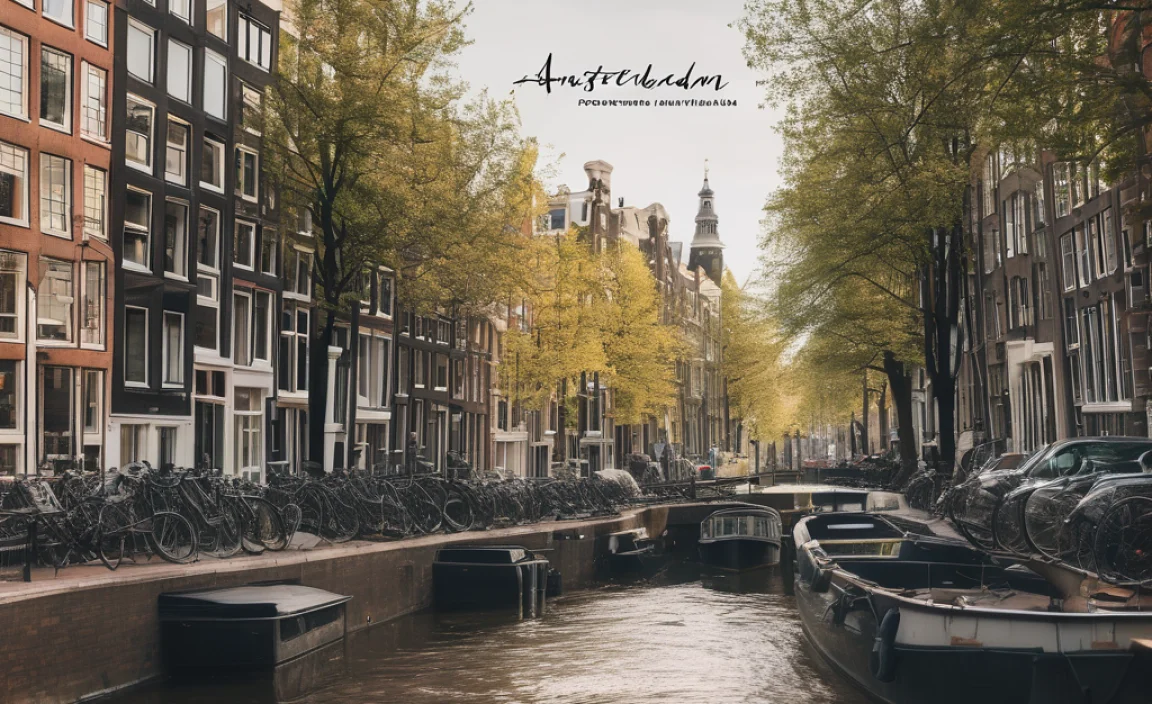
Amsterdam Signature Font, designed by Perspectype, is an elegant handwritten script font perfect for branding, logos, and creative projects. This signature font adds sophistication to various designs with its smooth curves and calligraphic strokes. Whether you’re creating a branding project, a wedding invitation, or an album cover, Amsterdam Signature Font provides a refined and modern touch.
Key Features Of Amsterdam Signature Font
- Font Style: Handwritten Script
- Designer: Perspective
- Best For: Branding, advertising, watermarking, and creative typography
- Stylistic Alternates: Available
Amsterdam Signature Font Family
- Amsterdam Signature Regular
- Amsterdam Signature Italic
- Amsterdam Signature Font Duo
Why Choose Amsterdam Signature Font?
- Ideal for signature logo design
- Perfect for branding projects and advertising design
- Enhances digital lettering arts and calligraphy fonts
- Offers a modern yet vintage script typeface
- Works well with sans serif fonts and stencil fonts
Font Usage Guide
Amsterdam Signature Font is highly versatile and can be used in various design projects:
- Logo Design: Create stylish, handwritten logos
- Branding Projects: Elevate brand identity with a personal touch
- Advertising Design: Enhance promotional materials with elegant script
- Album Covers: Craft stunning typography for music projects
- Wedding Invitations: Perfect as a wedding font for elegant designs
- Watermarks: Ideal for photographers and artists
Comparison With Similar Fonts
| Font Name | Style | Best Used For |
| Amsterdam Signature | Script | Logos, Branding, Watermarks |
| Sacramento | Calligraphy | Invitations, Digital Design |
| Noelan Script | Handwritten | Advertising, Posters |
| Signatura Monoline | Monoline Script | Business Cards, Lettering |
| Autography | Casual Script | Social Media, Album Covers |
- What Styles Are Included In The Amsterdam Signature Font Family?
- It includes Regular, Italic, and Font Duo styles.
- Is Amsterdam Signature A Serif Font?
- No, it is a script font but pairs well with serif fonts.
- Does It Include Stylistic Alternates And Special Characters?
- Yes, the font features various stylistic alternates for creative use.
- Can I Use This Font In Fortnite Font Designs Or Stencil Fonts?
- It is primarily a script typeface, but it can complement other styles.
- Is The Font Suitable For Modern And Vintage Designs?
- Absolutely! It blends well with both modern fonts and vintage fonts.